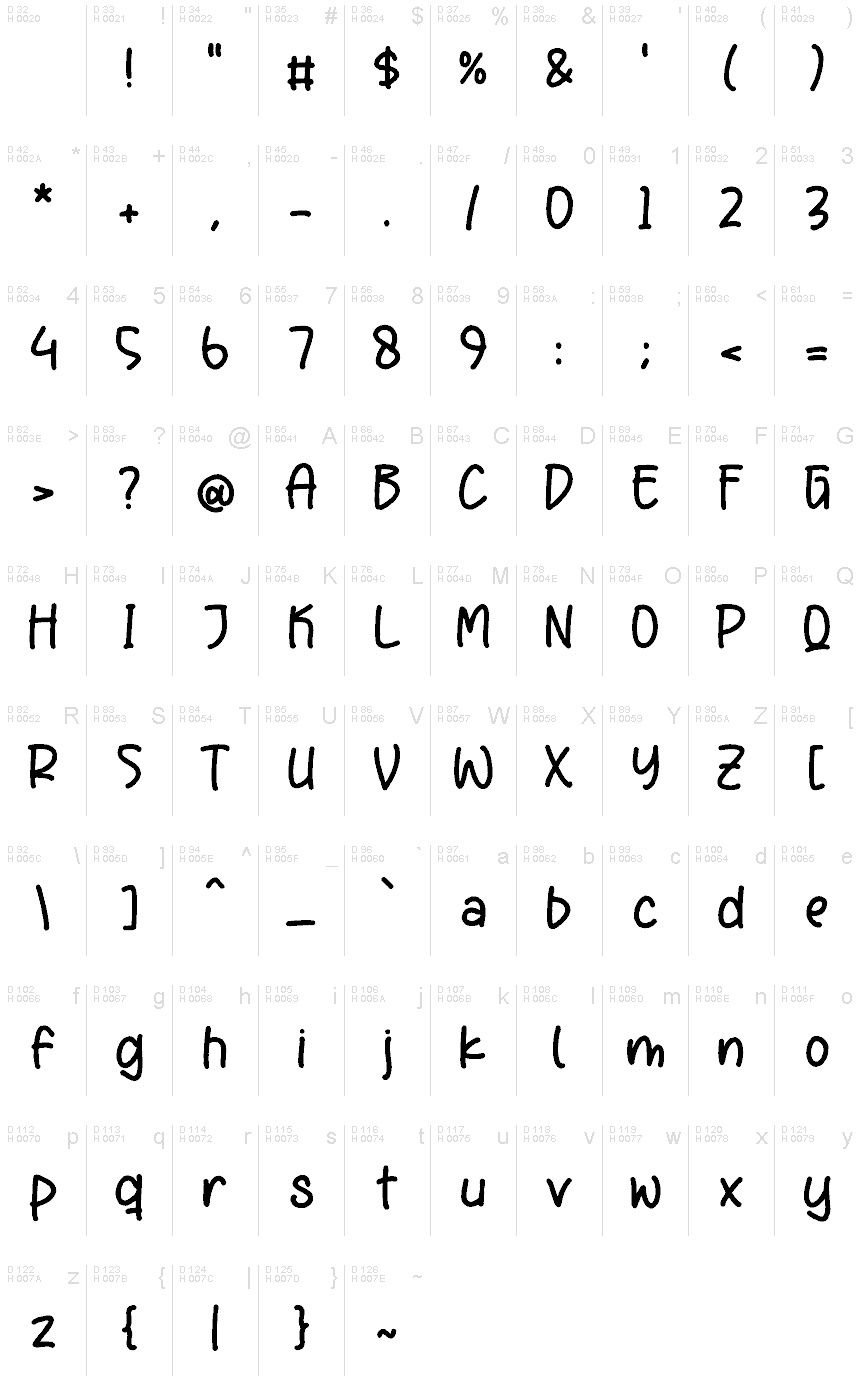
Kinderson Notes
Kinderson Notes font by Perspectype Studio - Letterena.com brings a friendly, casual handwritten style with a whimsical touch. Its approachable feel makes it a charming choice that perfectly balances simplicity and playfulness. The font’s subtle quirks and natural flow reflect the human touch of hand-drawn letters, offering an authentic warmth in its appearance.
This free handwritten font is perfect for projects where personality is paramount. Use it for personal branding, greeting cards, social media graphics, logos and labels, book covers and invitations. It also suits posters and flyers which catch the eye with casual appeal; or typography which needs that accessible but interesting design element – truly versatile!